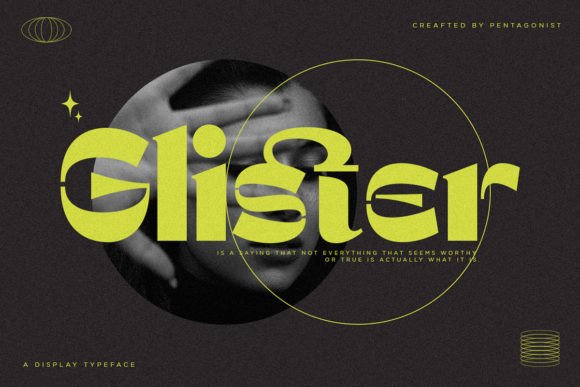
Introduce yourself to Glister Font, a display font that captivates the senses with its remarkable beauty and mesmerizing essence. Immerse yourself in the world of creativity and elevate your designs to extraordinary heights with this extraordinary font.
Inspired by the allure of diamonds and the brilliance of stars, Glister Font possesses an unmatched charm that turns every letter into a treasure. Its strokes, meticulously crafted with the finest precision, dance across the canvas, leaving an everlasting impression of sophistication and elegance.
With its delicate and ornate nature, Glister Font adds a touch of glamour and enchantment to your designs. It effortlessly transforms ordinary words into works of art, breathing life into your logos, posters, branding projects, and more. Let your creativity flourish as you explore the limitless possibilities that Glister Font presents.
Embrace the charm of Glister Font today and embark on a creative journey that will leave a lasting impact. Elevate your designs, capture hearts, and leave an unforgettable impression wherever your creations go. Discover the power of Glister Font and unlock the true potential of your artistic vision.